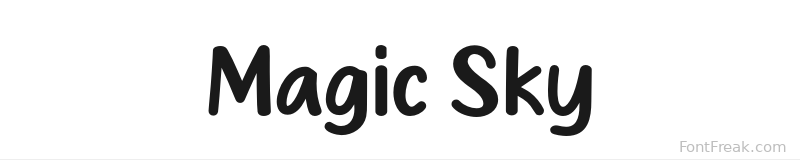
Magic Sky
Magic Sky by MJType is a captivating display font that beautifully combines whimsy and elegance. This font features a unique handwritten style, characterized by its smooth, flowing strokes that evoke a sense of creativity and playfulness. Its medium stroke weight and subtle contrast lend it an inviting, friendly appearance, making it suitable for various design applications. The letters are well-spaced, ensuring readability while maintaining an artistic flair. Decorative elements, such as gentle curves and rounded edges, enhance its magical theme, making it visually appealing.
This font excels in specific use cases, making it a versatile addition to any designer's toolkit. It is perfect for crafting enchanting wedding invitations that capture the essence of romance, or for designing eye-catching movie posters that draw attention. Additionally, Magic Sky is ideal for whimsical restaurant menus, offering a charming touch that complements a cozy dining atmosphere. Content creators will find it valuable for social media graphics, where a playful yet sophisticated font can elevate their visual storytelling.
In conclusion, Magic Sky stands out for its enchanting style and versatility. It captures a sense of wonder and creativity, making it a fantastic choice for a wide range of design projects. Whether you're aiming for a dreamy aesthetic or a playful vibe, this font will undoubtedly elevate your designs and leave a lasting impression.